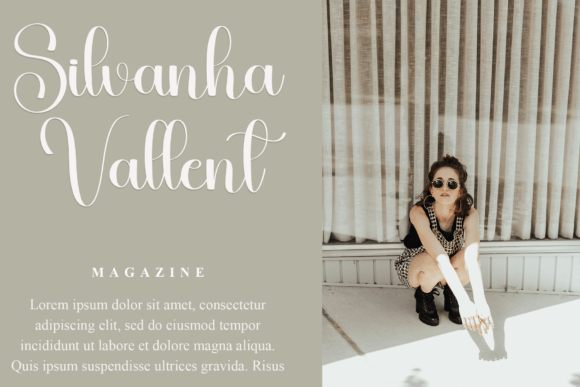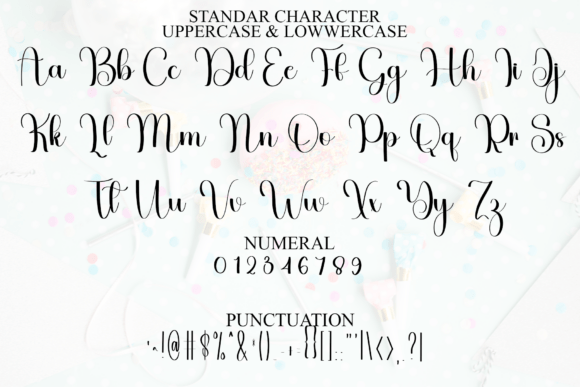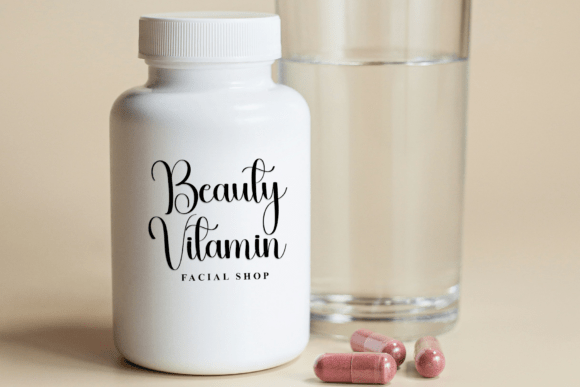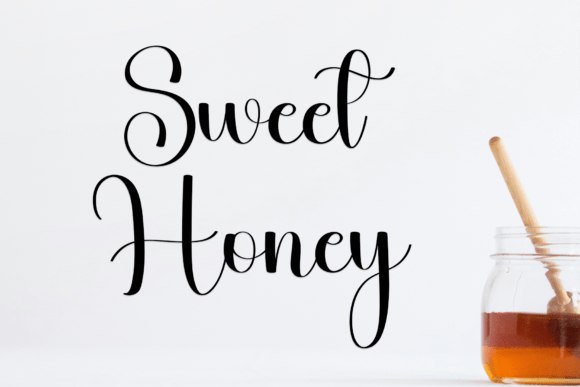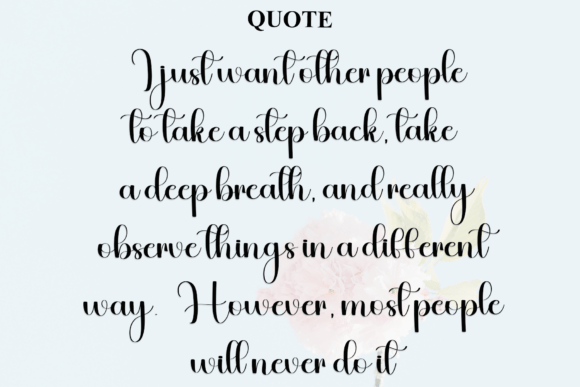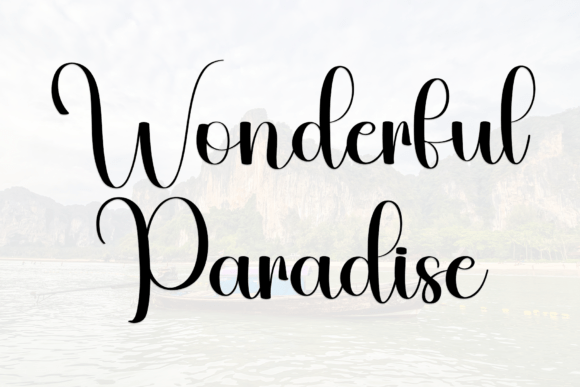
Discover the Elegance of Beauty Paradise Font
Are you on the hunt for a font that exudes sophistication, elegance, and a touch of modern flair? Look no further than the stunning Beauty Paradise Font. This exquisite handwritten font is meticulously crafted to capture the essence of luxury and refinement, making it an ideal choice for designers and crafters seeking to elevate their projects.
The Essence of Beauty Paradise Font
Beauty Paradise Font is a masterful blend of traditional calligraphic influences and contemporary design elements. Its classy, elegant feel is perfectly balanced with a fresh, modern approach, making it versatile enough to be used across a wide range of creative projects. Whether you’re working on a high-end branding campaign, a stylish website, or a beautiful craft project, this font is sure to make a lasting impression.
What Makes Beauty Paradise Font Stand Out?
- Exquisite Handwritten Design: Each letter is carefully crafted by hand, giving the font a unique, personal touch that sets it apart from more generic typefaces.
- Classy Calligraphic Influences: The font’s roots in traditional calligraphy are evident, providing an air of sophistication and luxury.
- Contemporary and Fresh: Despite its classic influences, Beauty Paradise Font feels modern and current, ensuring your projects look both timeless and trendy.
- Versatility: From elegant headings and titles to more detailed, flowing text, this font adapts beautifully to various design needs.
Beauty Paradise Font is not just a typeface; it’s a design element that can transform your projects. For designers, it offers a sophisticated tool to enhance branding, web design, and marketing materials. For crafters, it provides a beautiful, elegant script to adorn handmade crafts, journals, and DIY projects. Its wide range of applications makes it a valuable addition to any creative toolkit.
Tips for Maximizing Impact
- Pair with Simpler Fonts: For maximum effect, pair Beauty Paradise Font with simpler, sans-serif fonts to create a striking contrast.
- Experiment with Colors: While the font itself is elegant, experimenting with different colors can help match your project’s theme or brand palette.
- Use for Headings and Titles: Its decorative nature makes it perfect for headings and titles, but don’t be afraid to use it for short paragraphs or quotes to add a touch of elegance.
Beauty Paradise Font is more than just a font; it’s a statement of elegance and sophistication. Its unique blend of traditional calligraphy and modern design makes it a versatile and valuable tool for any designer or crafter looking to elevate their projects. With its exquisite design and wide range of applications, Beauty Paradise Font is sure to become your new favorite. So why wait? Fall in love with Beauty Paradise Font and bring your projects to the highest levels of beauty and refinement.